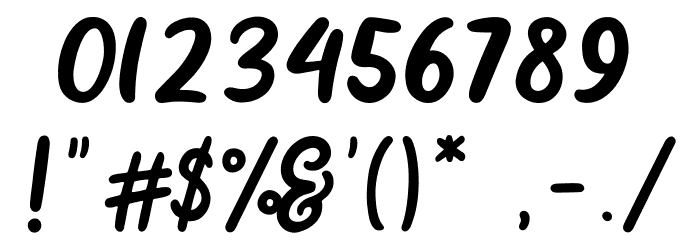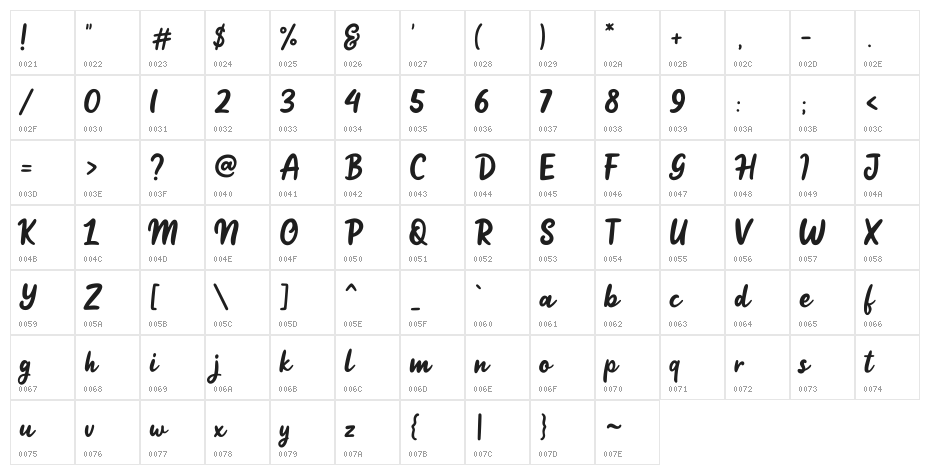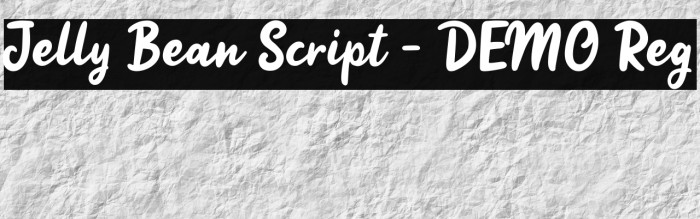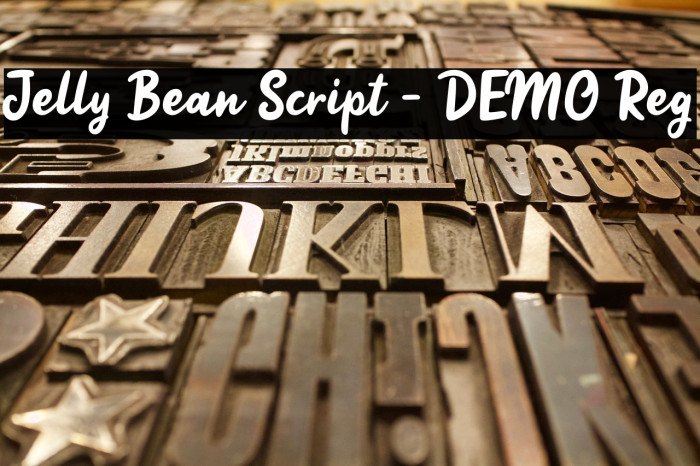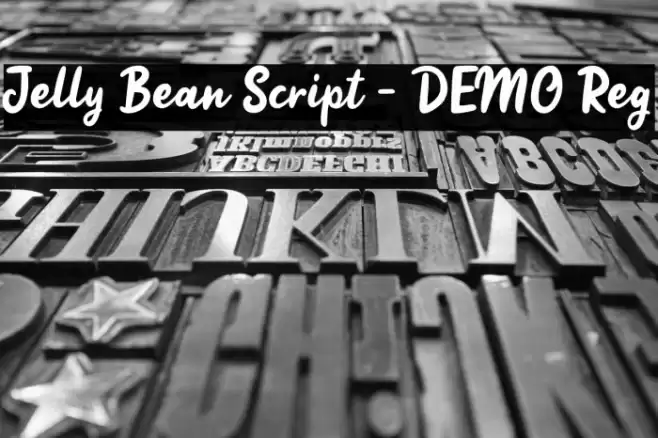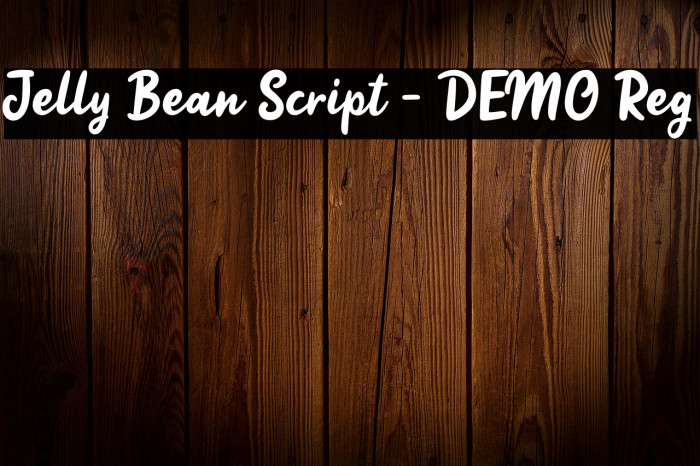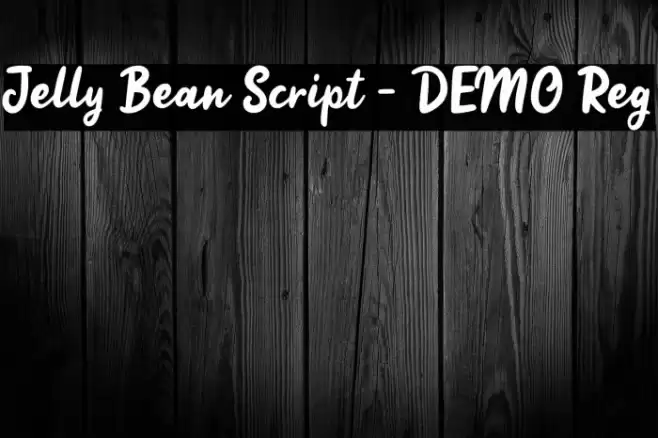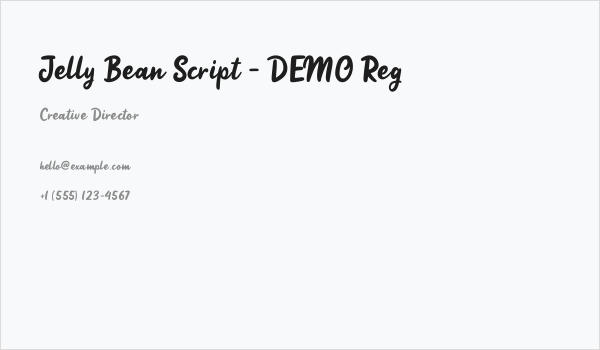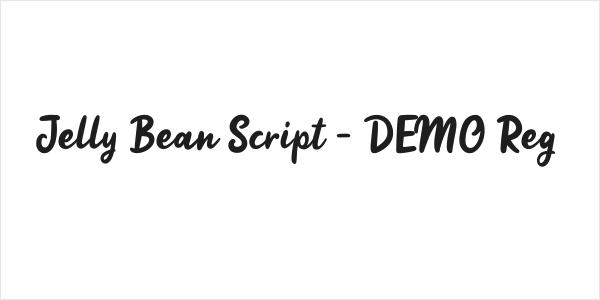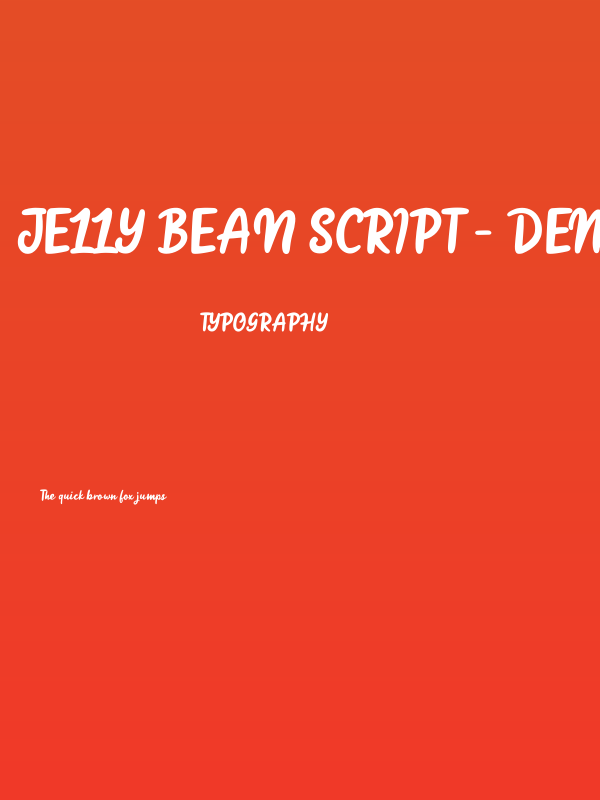
Jelly Bean Script - DEMO Reg Font
Jelly Bean Script - DEMO Reg Description
This font exudes a playful and lively character with its smooth, flowing script style. The letters are bold and rounded, giving a sense of friendliness and approachability. Each character connects seamlessly, enhancing the script's fluidity and making it ideal for conveying a casual, yet stylish tone. The uppercase letters maintain a consistent height, while the lowercase letters feature charming loops and curves, adding to the overall whimsical feel. The numerals are equally rounded and bold, ensuring readability while maintaining the font's cohesive style. Special characters are crafted with the same attention to detail, making this font versatile for various design needs.
| Proposed Projects | Ideal for greeting cards, playful branding, children's books, and social media graphics. |